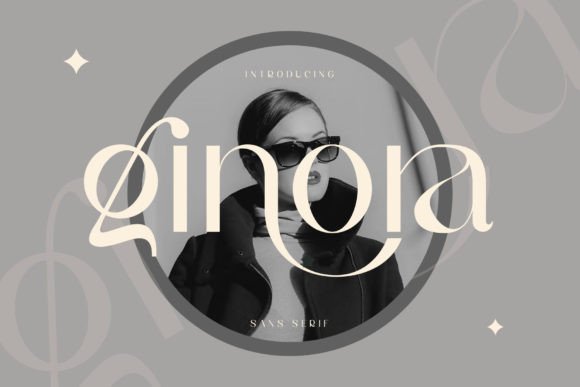
Introducing Ginora Font, the epitome of elegance and class in the world of sans-serif typefaces. Created by the talented yaqublekker, this font is an absolute game-changer for anyone seeking to elevate their design game. With its modern yet nostalgic vibe, Ginora Font is perfect for logos, magazines, and social media.
Are you tired of settling for ordinary fonts that fail to capture the essence of your brand or design? Look no further! Ginora Font is here to add a touch of sophistication and style to your projects. Its versatility knows no bounds, making it a must-have for designers, entrepreneurs, and content creators alike.
Imagine your brand's name beautifully displayed in Ginora Font, catching the eye of potential customers and leaving a lasting impression. Its clean lines and sleek curves exude professionalism and refinement, making it the ideal choice for businesses looking to make a statement.
Whether you're designing a magazine spread, a captivating logo, or crafting the perfect social media post, Ginora Font has got you covered. Its timeless appeal is bound to captivate your audience, fostering a sense of trust and credibility.
But what sets Ginora Font apart from the rest? It seamlessly combines elegance, style, class, and modernity in one stunning typeface. Its carefully crafted letterforms exude confidence and sophistication, instantly elevating any design it graces.
Ready to take your designs to new heights? Ginora Font is the answer. It's meticulously designed and perfectly suited for all your creative endeavors. From professional presentations to eye-catching advertisements, this font will effortlessly enhance your visual storytelling.
In a world where first impressions matter, Ginora Font ensures that your creations leave a lasting mark. Let your imagination run wild and watch as your designs become works of art with this exceptional typeface.